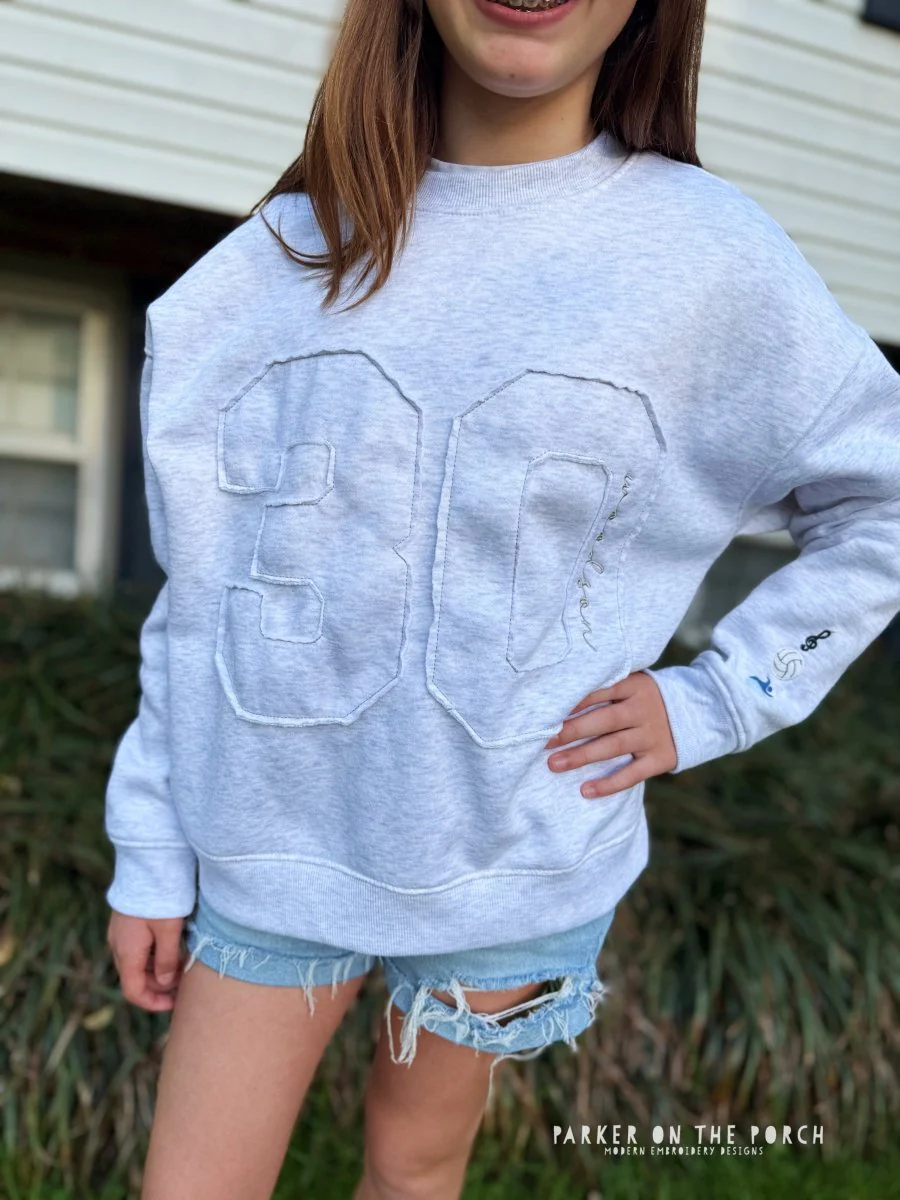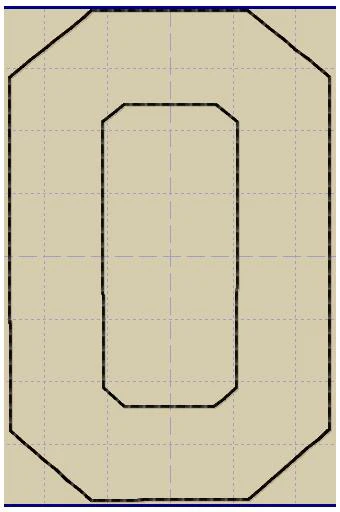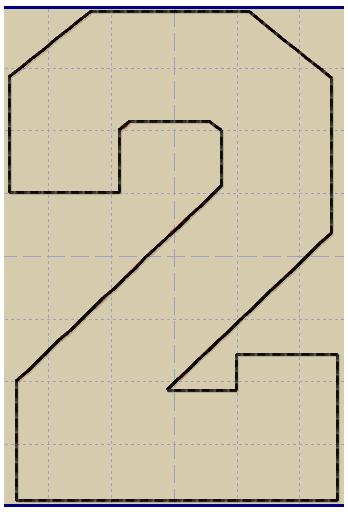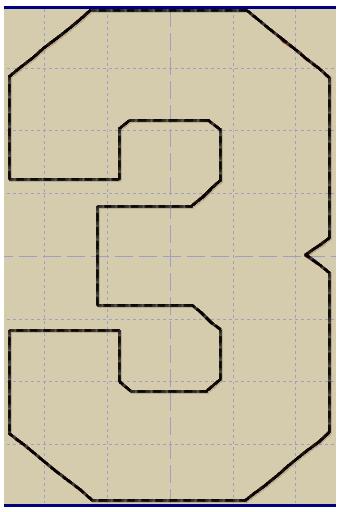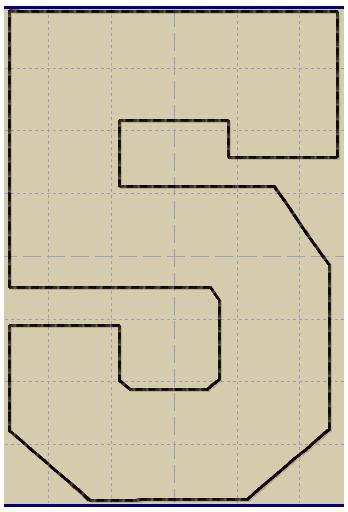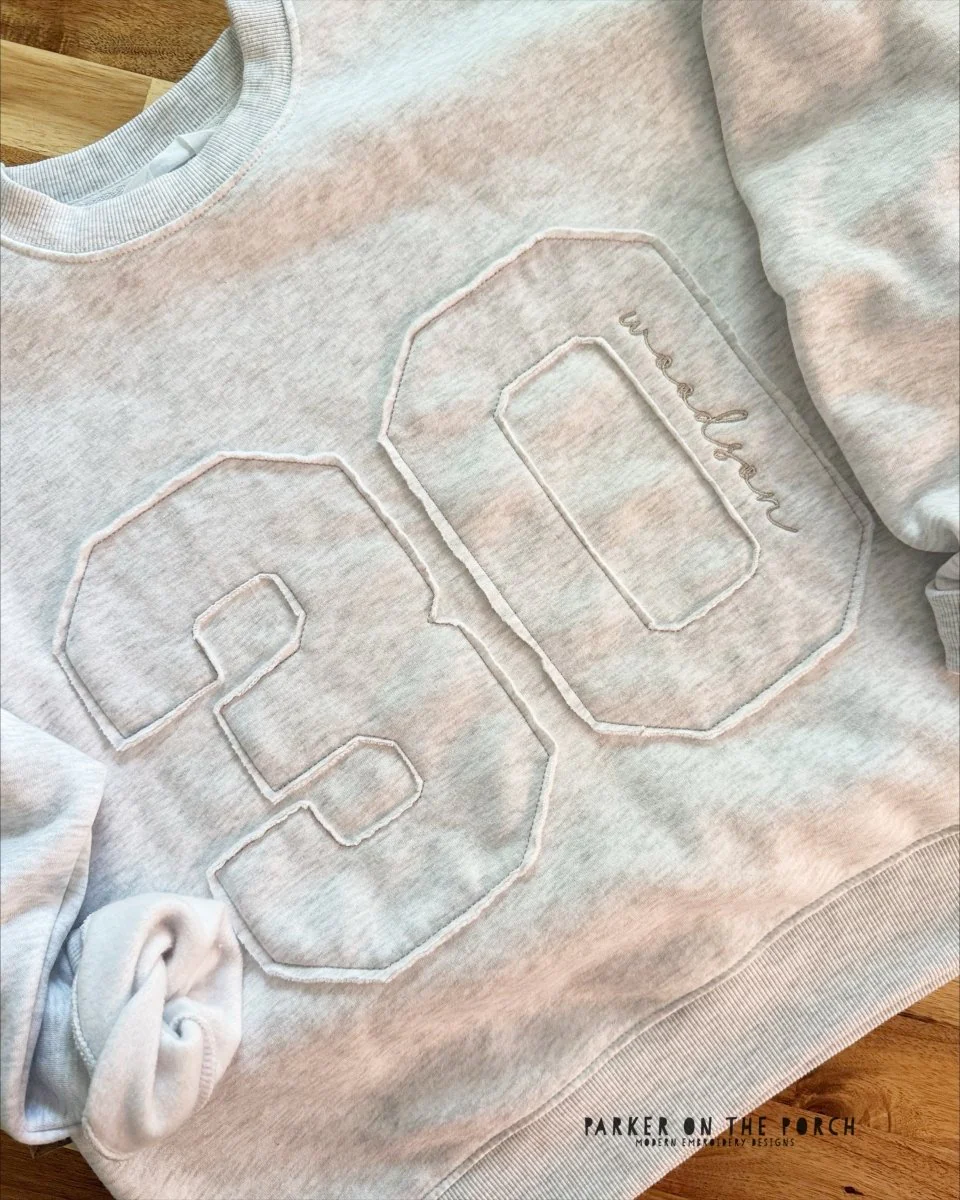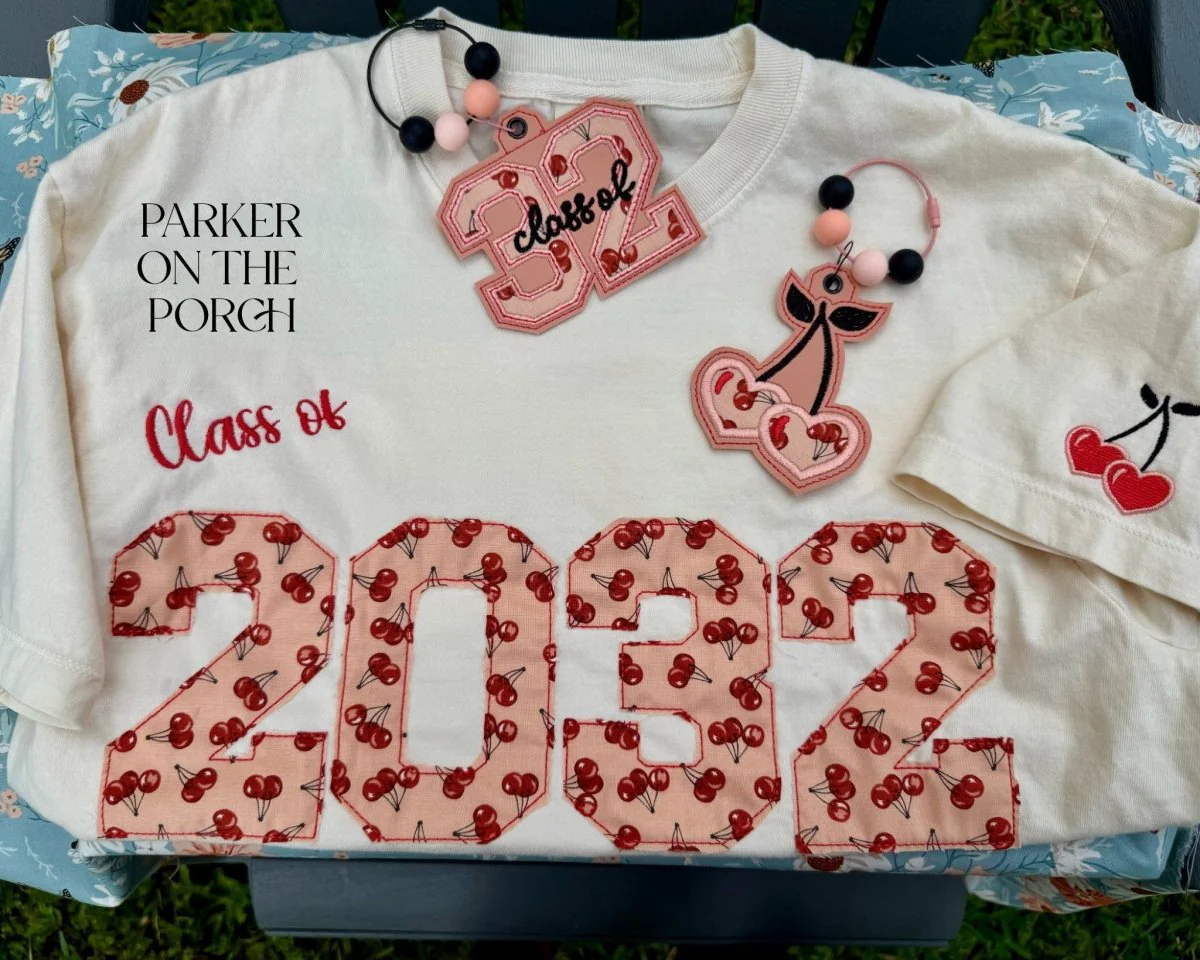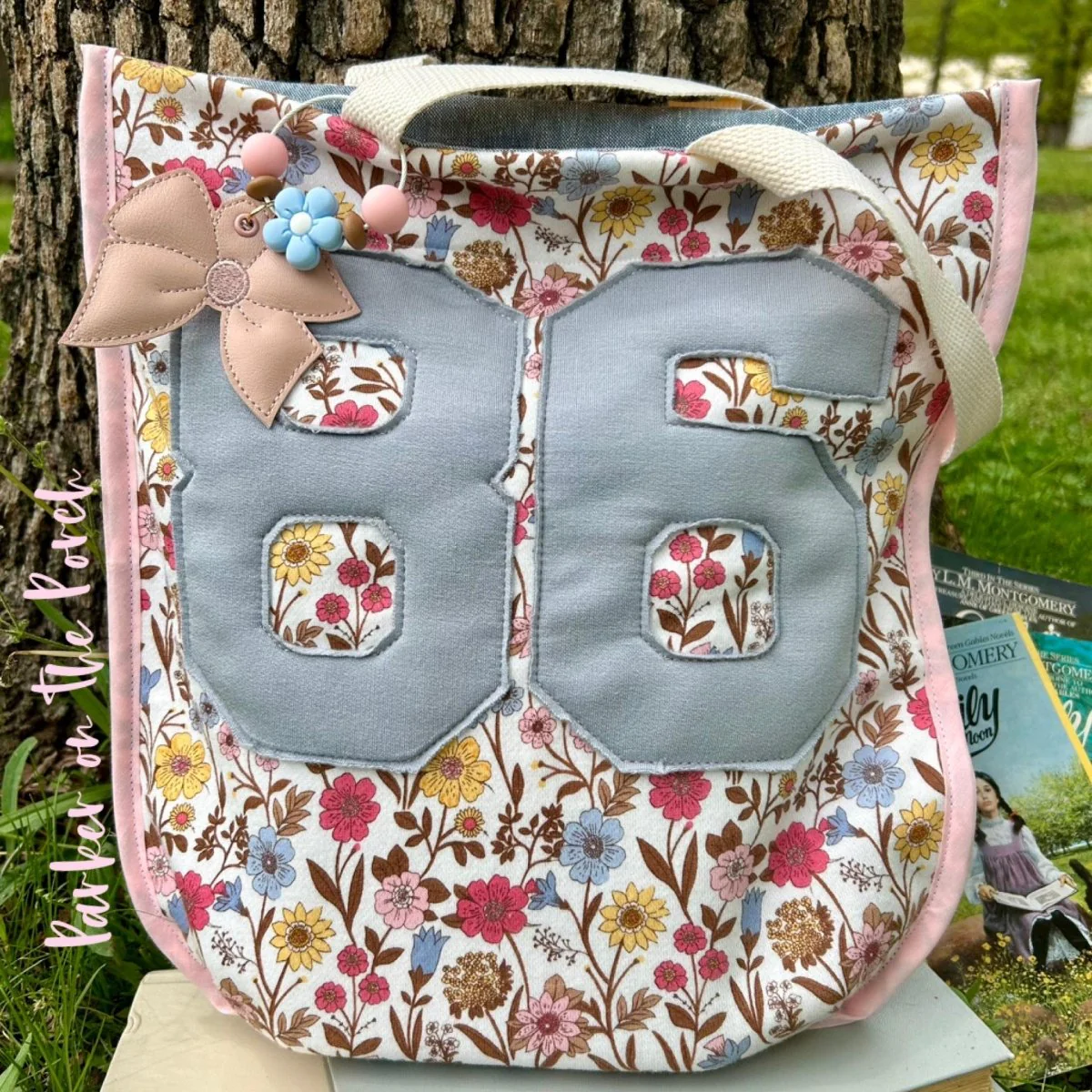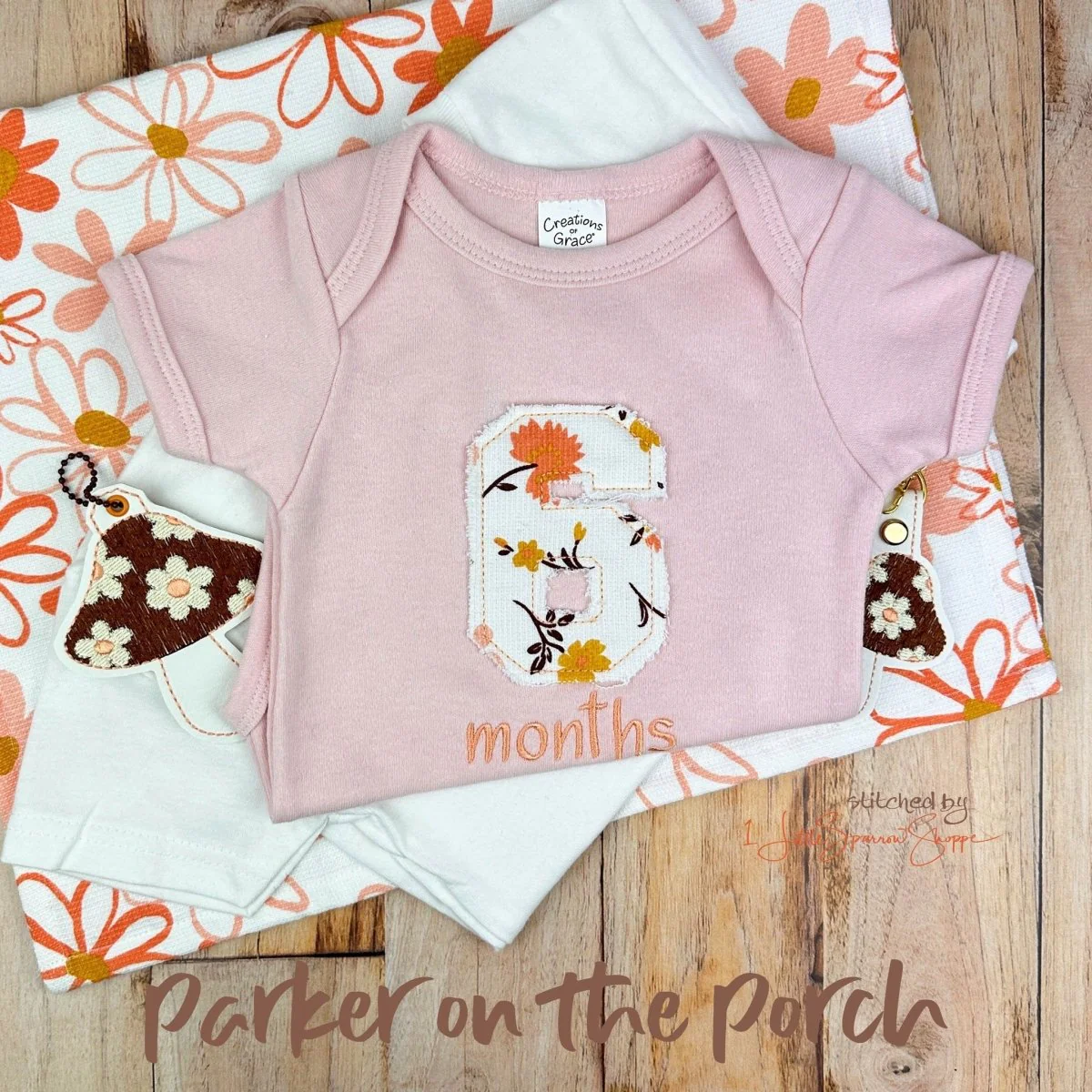
Shabby Applique Font- Squad Numbers (0-9) - Digital Embroidery Pattern Download
Add a bold, vintage athletic look to your projects with our Shabby Applique Font- Numbers. Designed with a slightly distressed, frayed-edge finish, this classic varsity-style font is perfect for team gear, banners, bags, quilts, and spirit wear.
• Applique is a shabby bean finish